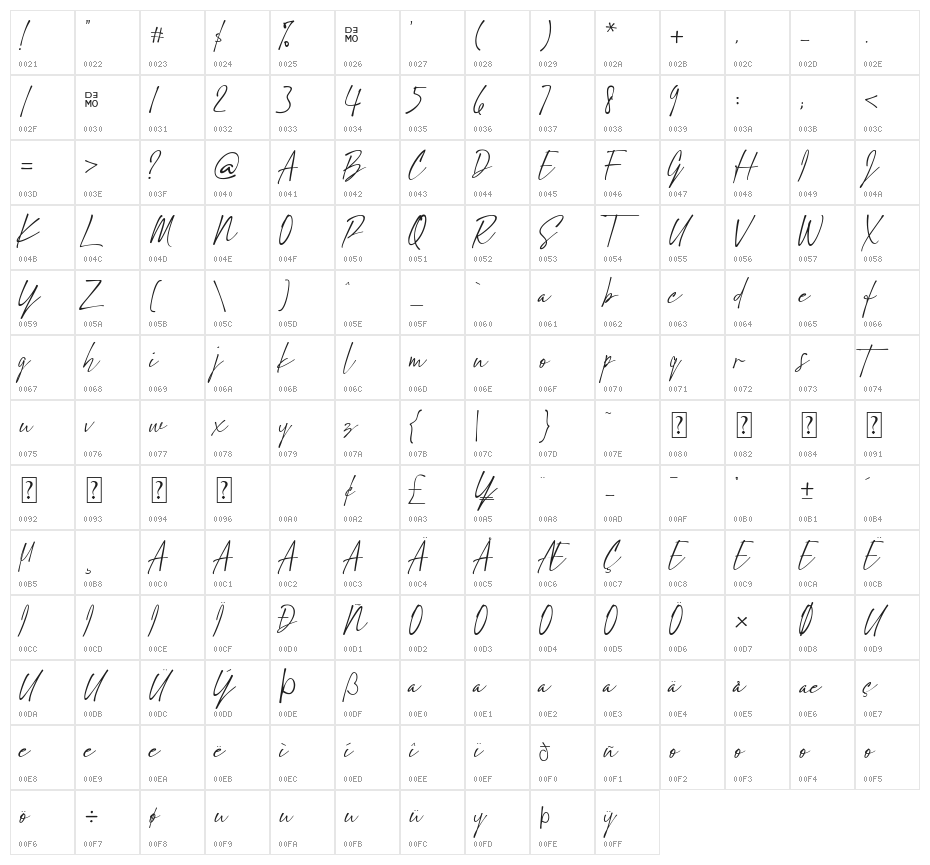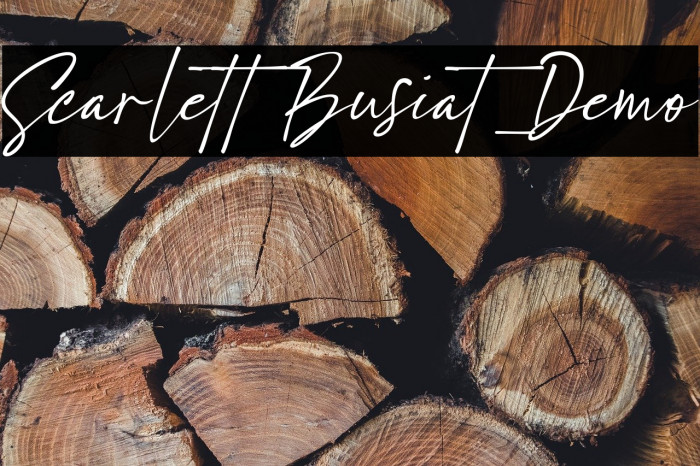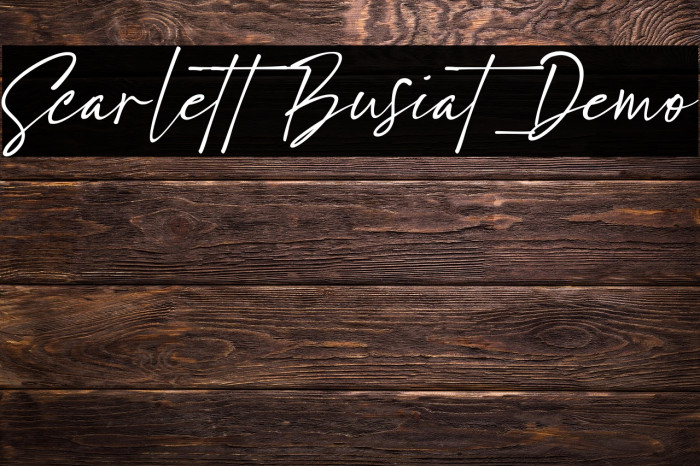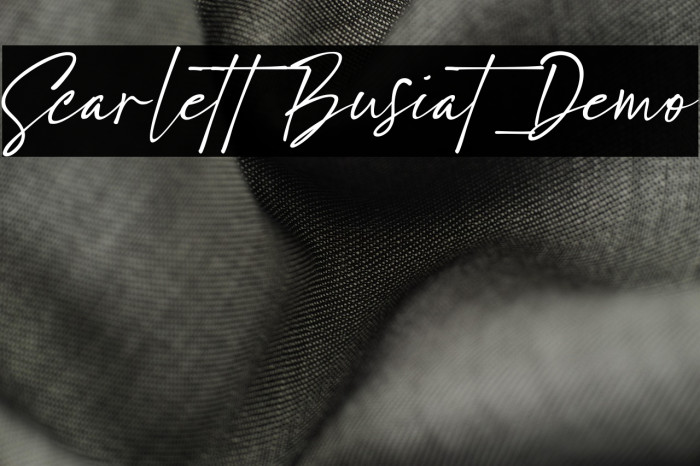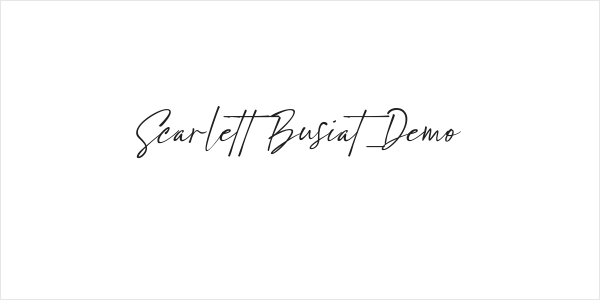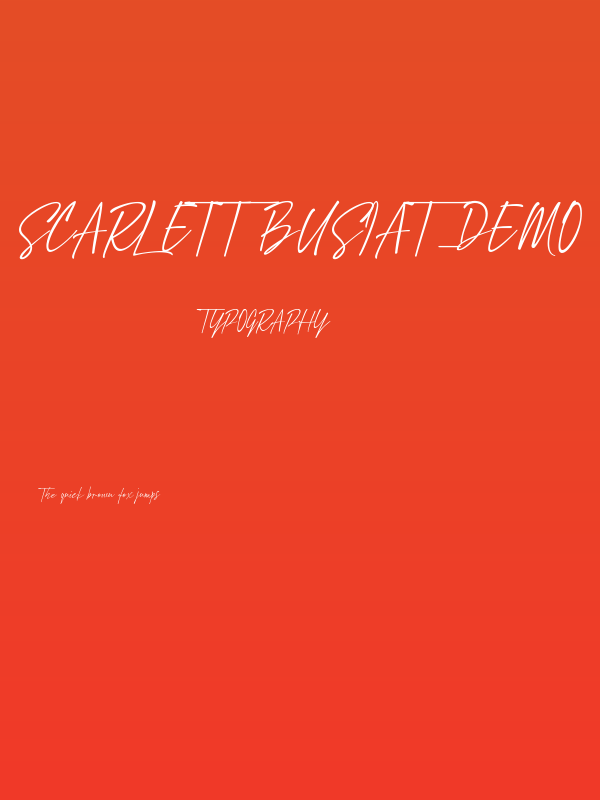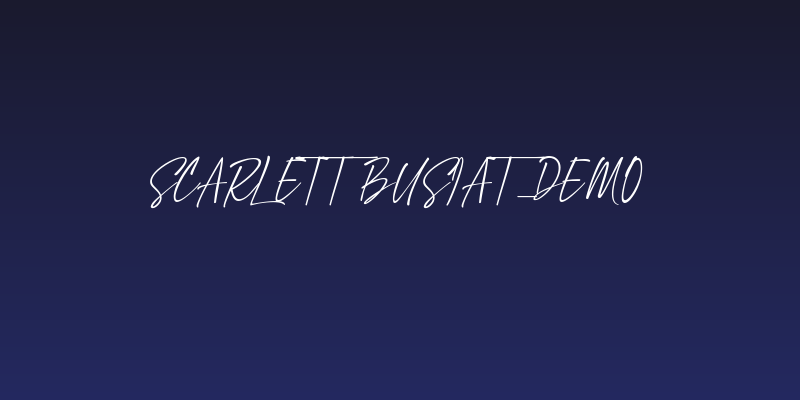
Scarlett Busiat_Demo Font
Scarlett Busiat_Demo Description
This font exhibits a dynamic and expressive handwritten style, characterized by its fluid and elegant strokes. The uppercase letters are tall and slightly slanted, giving a sense of movement and grace. The lowercase letters maintain a consistent flow, with some characters featuring unique loops and swashes that add to the font's charm. The numerals are distinct and maintain the handwritten aesthetic, while the special characters blend seamlessly with the overall style. This font's organic and personal touch makes it ideal for projects that require a human element.